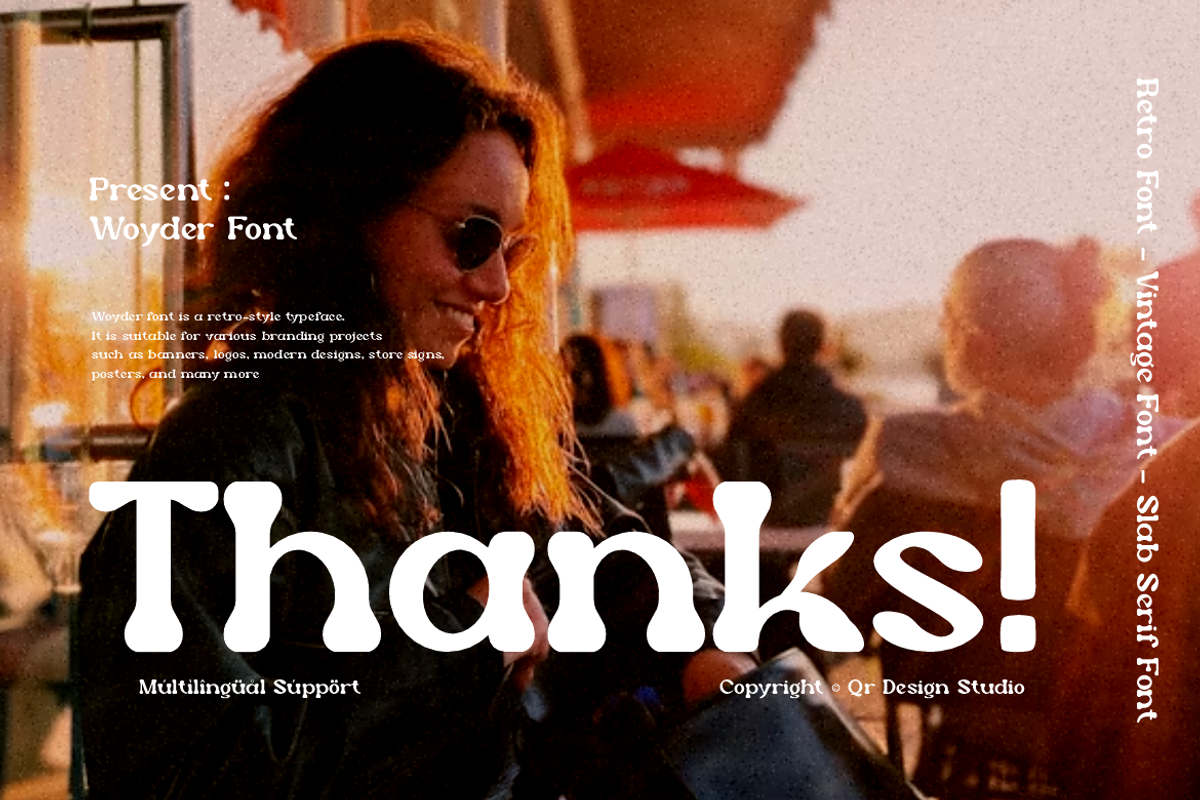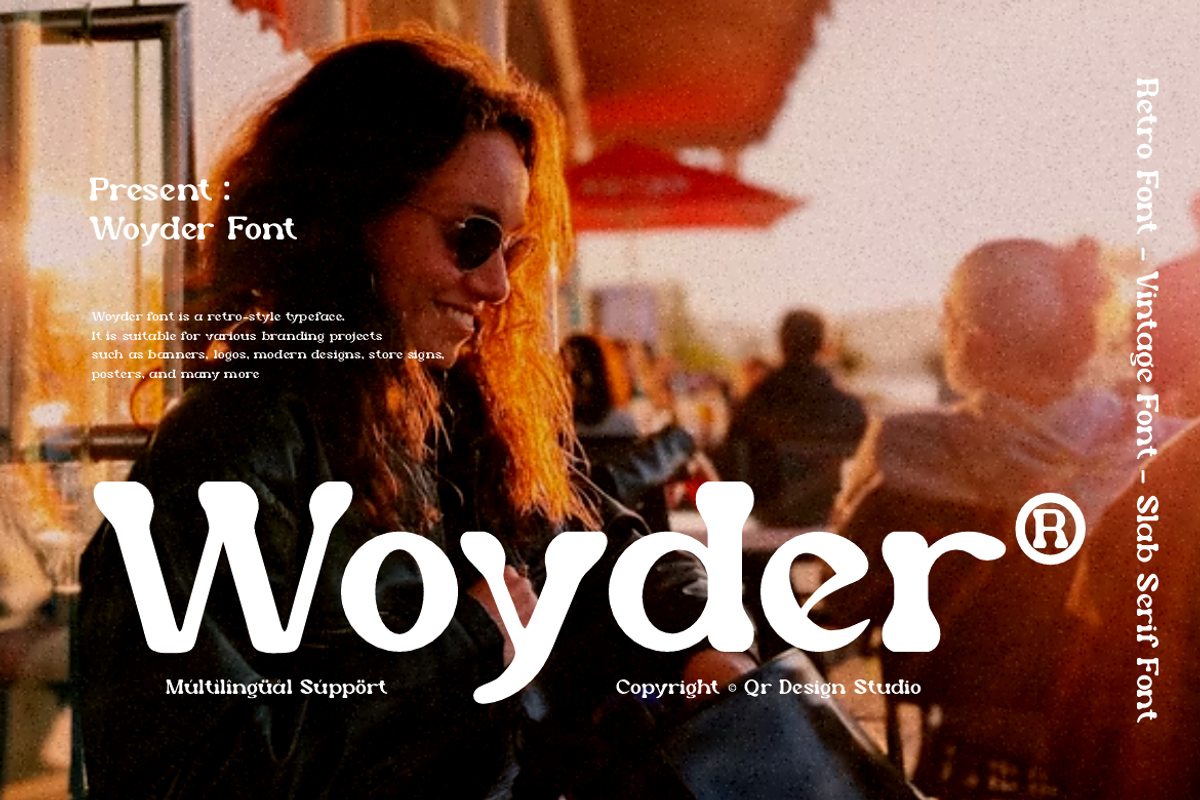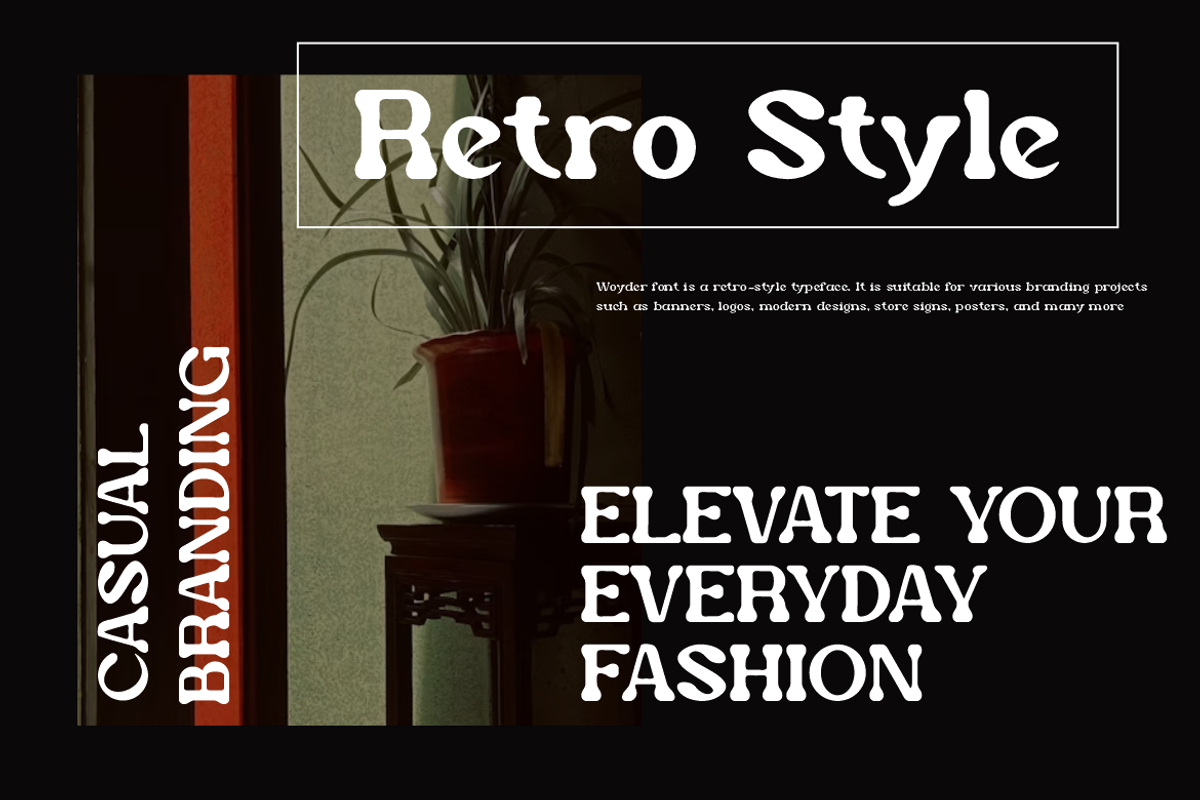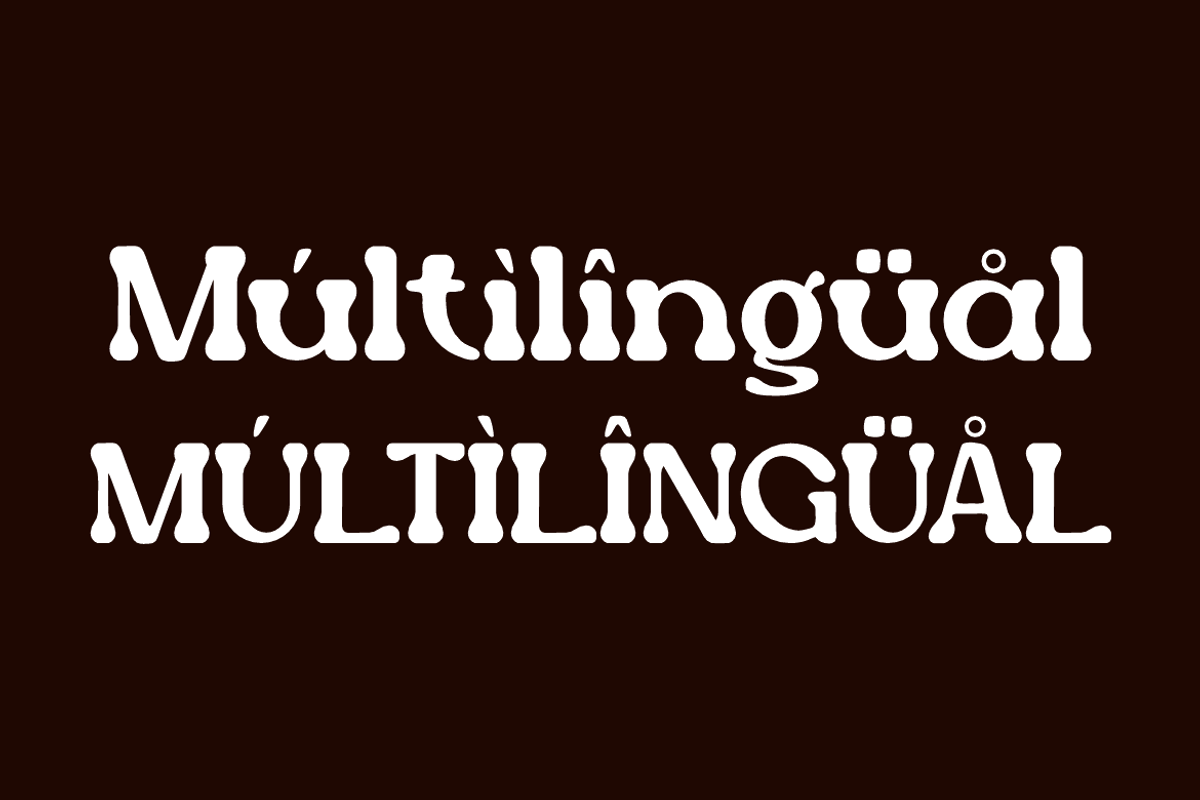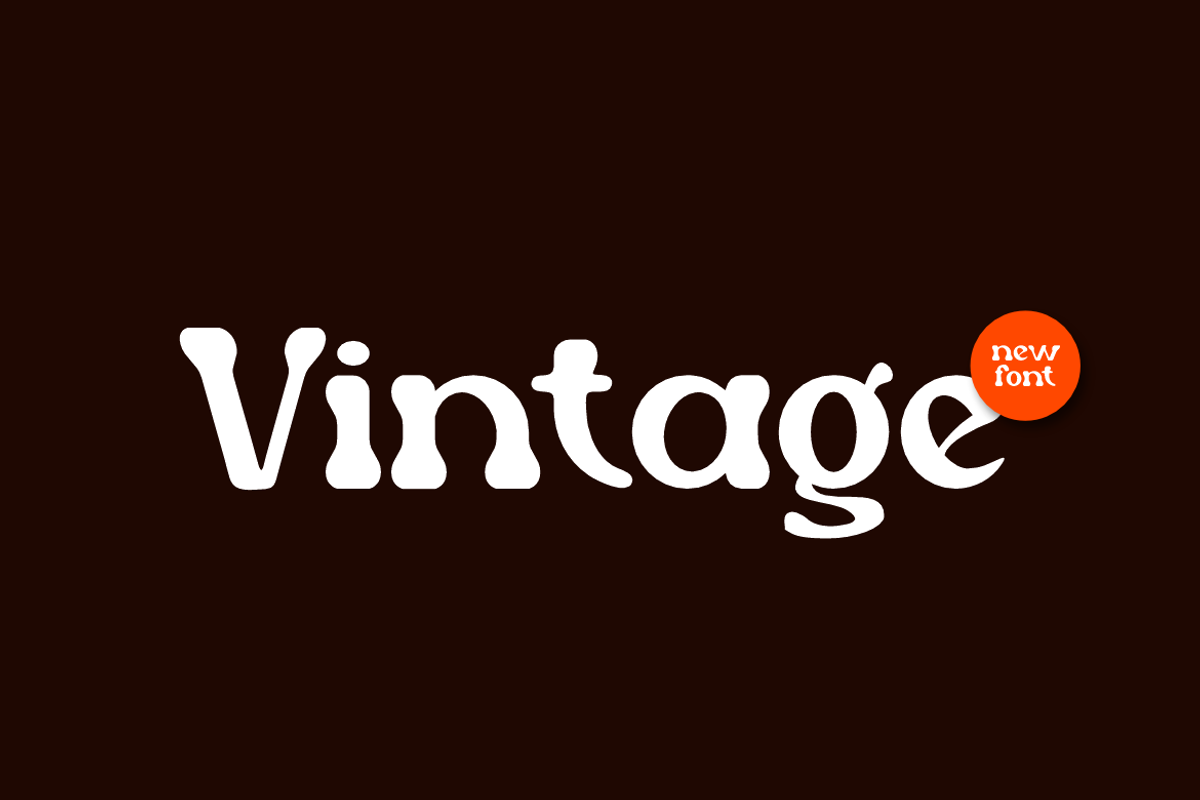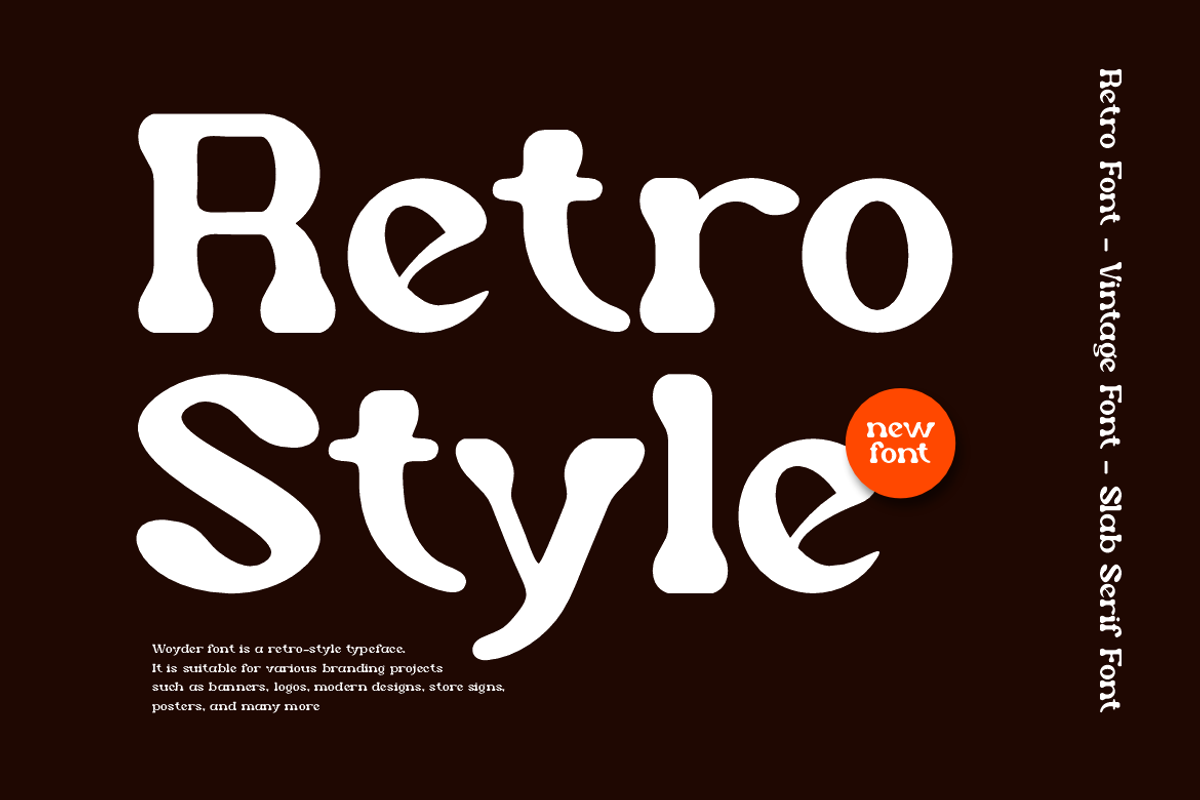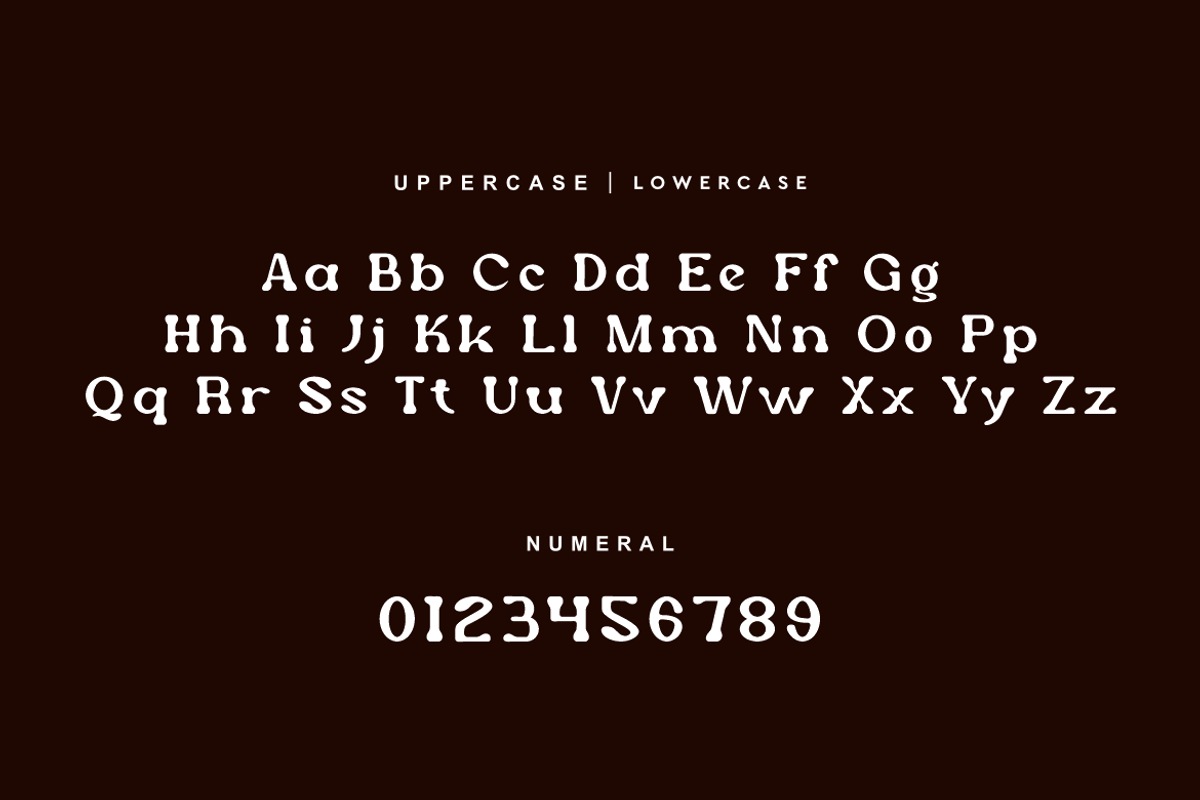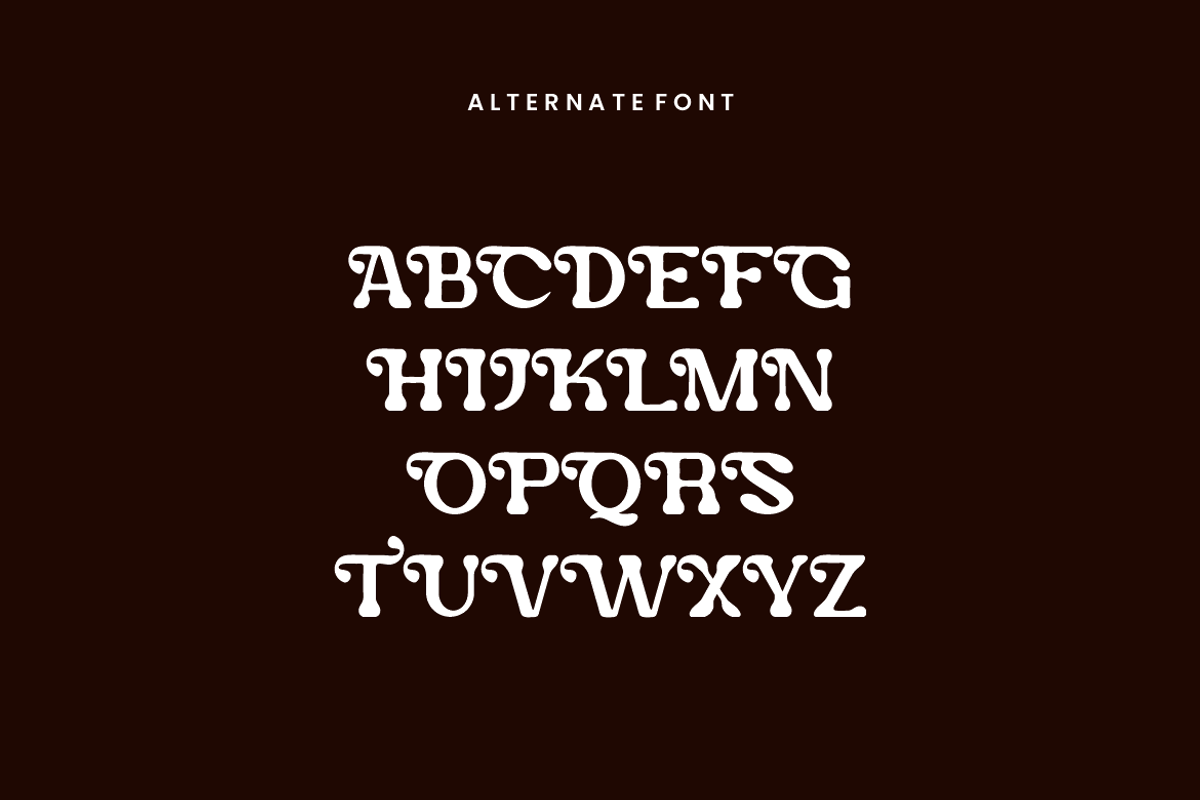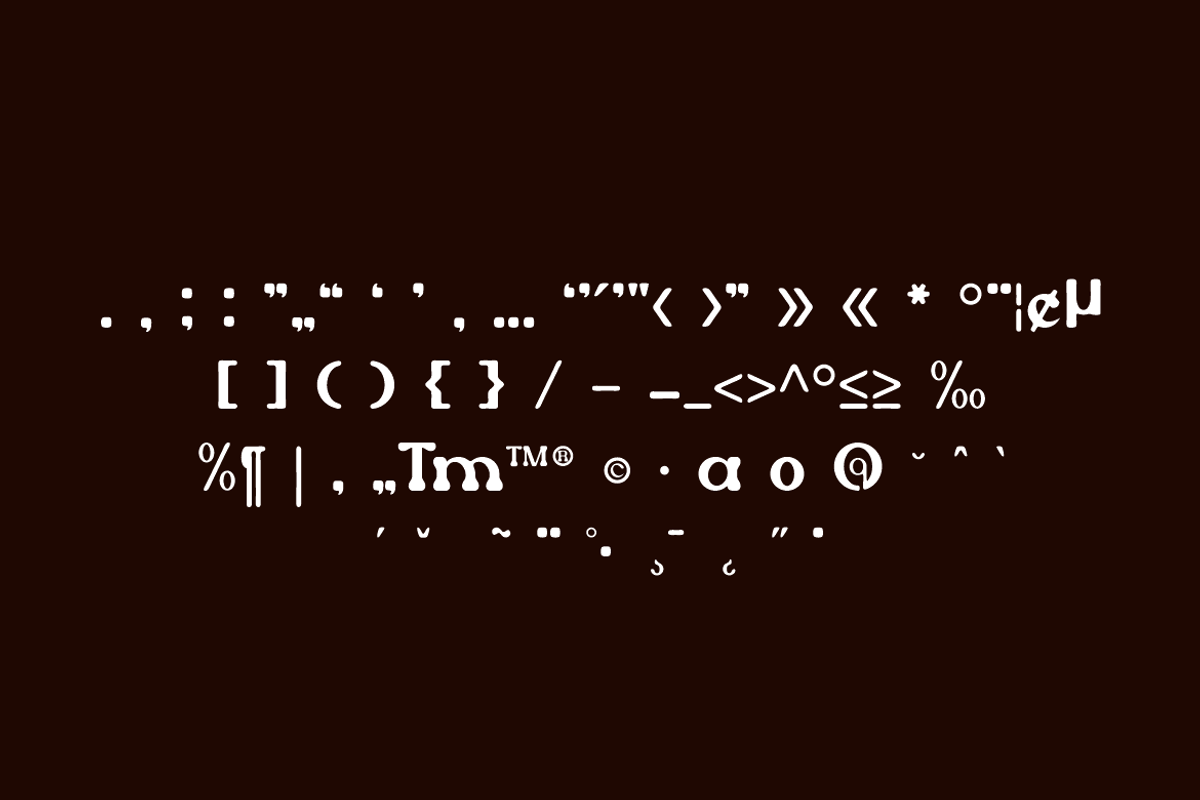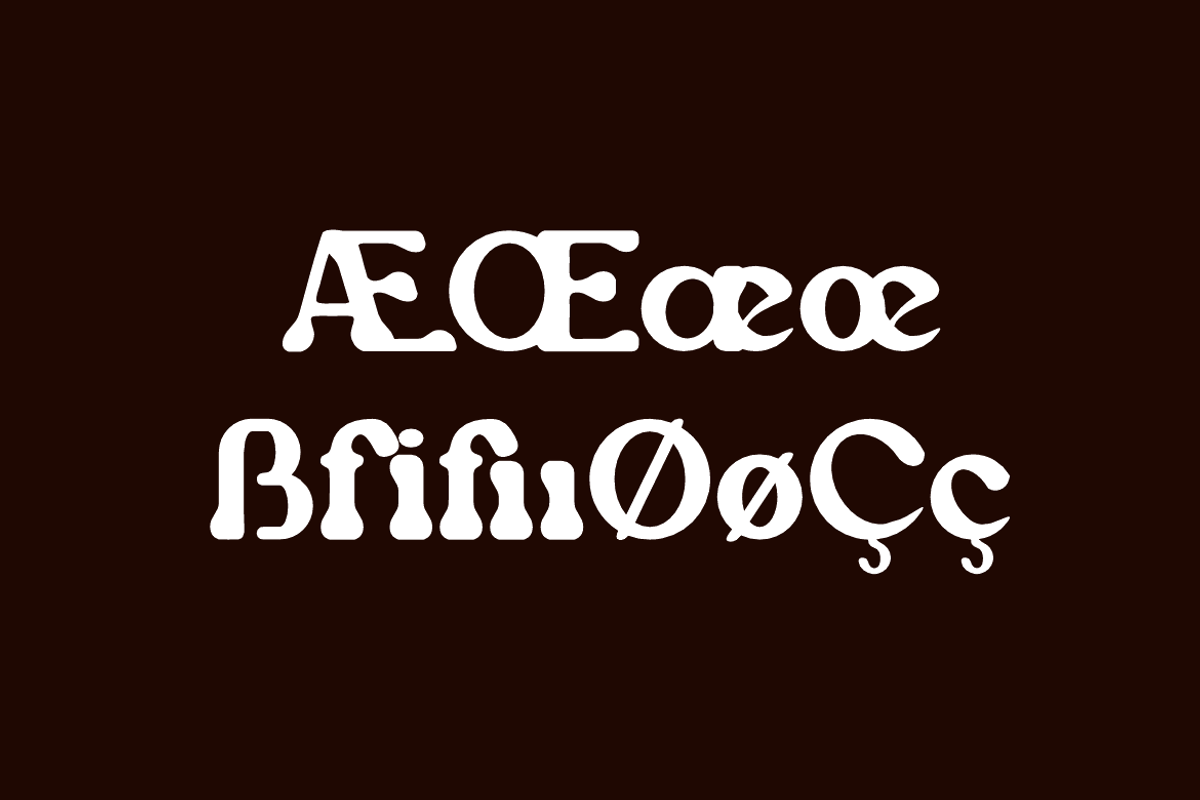
Woyder - Retro Display Font
Woyder Font is a serif and authentic display typeface.
It’s perfect for various branding projects such as logos, poster designs,
and more. This font stands out beautifully in a wide range of contexts.